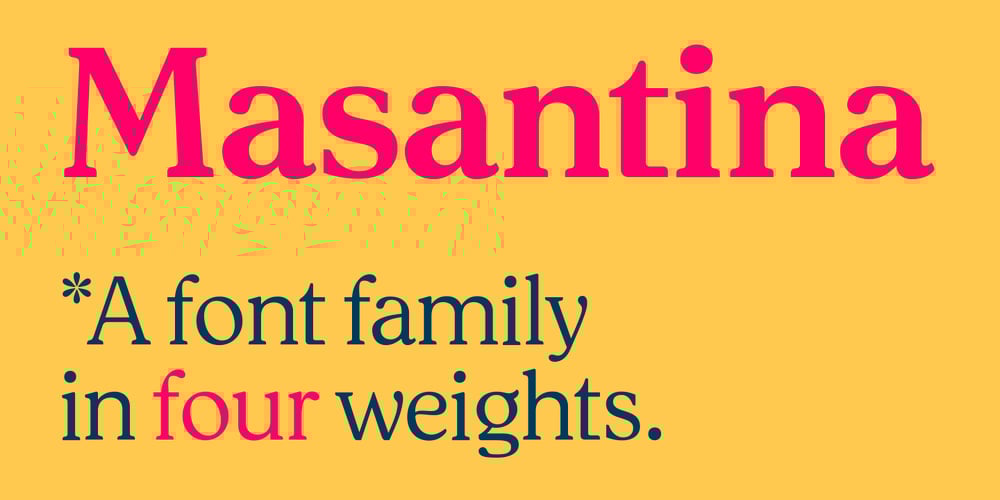
Masantina Font Family was designed by Ritmo Estudio and published by Estudio Calderon. Masantina contains 4 styles and family package options. A clean, elegant and modern serif that has a strong personality thanks to its soft endings, rounded terminals, inspired from Cheltenham, Belwe and Souvenir.Masantina is equipped for complex, professional typography. The OpenType fonts have an extended character set to support Central and Eastern European as well as Western European languages.